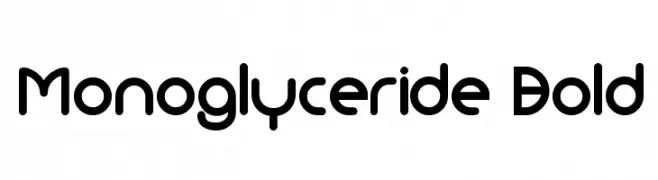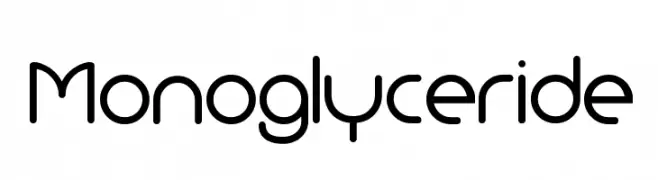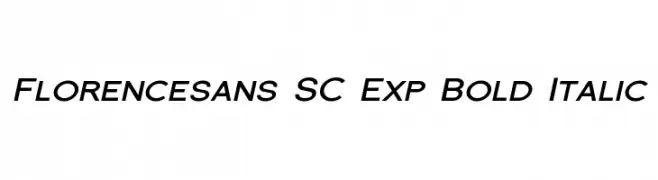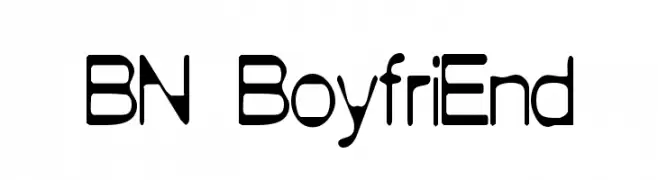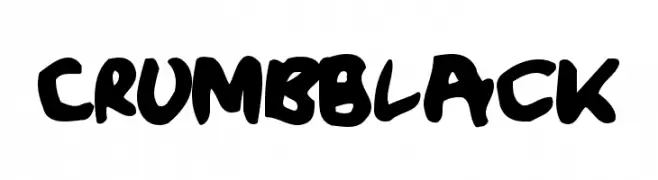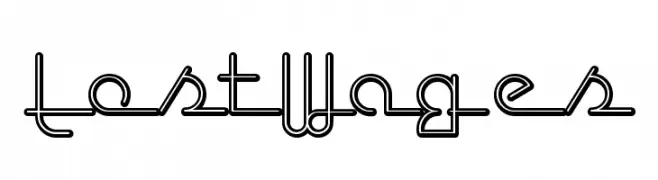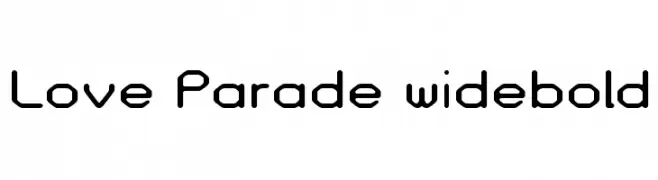
A bold, rounded font with a modern and playful style.
A modern, geometric font with rounded edges and uniform width.
A modern, bold, italic sans-serif font with expanded width and medium contrast.
A modern, playful font with bold uppercase and rounded lowercase letters.
A bold, distressed font resembling lipstick smudges, perfect for dramatic and playful designs.
A bold, playful handwritten font with thick, rounded strokes.
A modern, continuous line font with a geometric and futuristic style.
A bold, rounded geometric font with a modern and playful style.